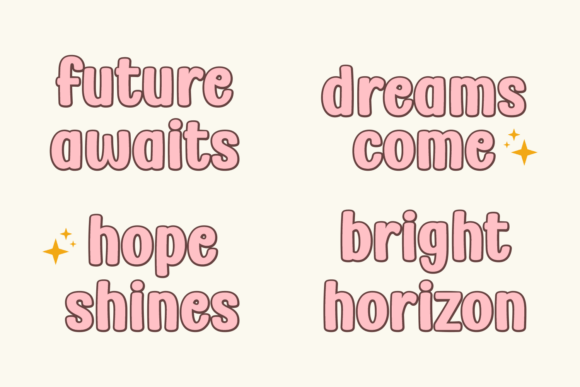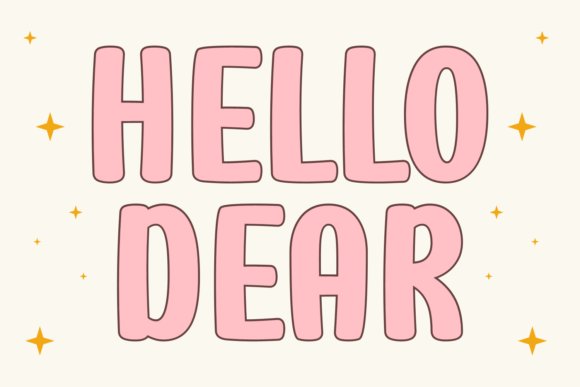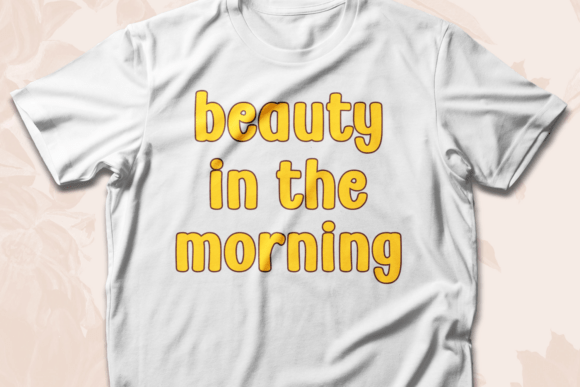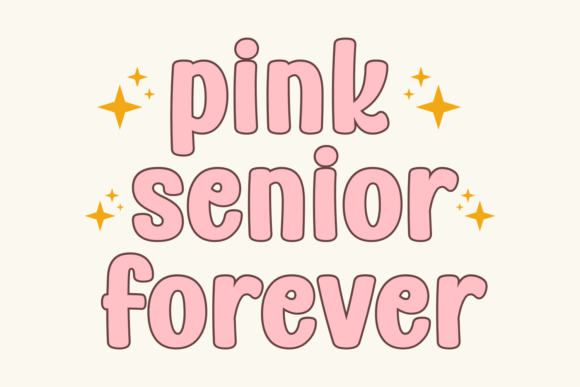
Introduction to Casino is Impossible Font
Introducing “Casino Is Impossible”, a delightfully amusing display font that embodies a distinctive handwritten style.
This authentic, smooth, and rounded design boasts an irresistibly clean and unique aesthetic Ideal for a range of applications, it perfectly adorns cards, magazine covers, vintage t-shirts, and memorable greeting cards.